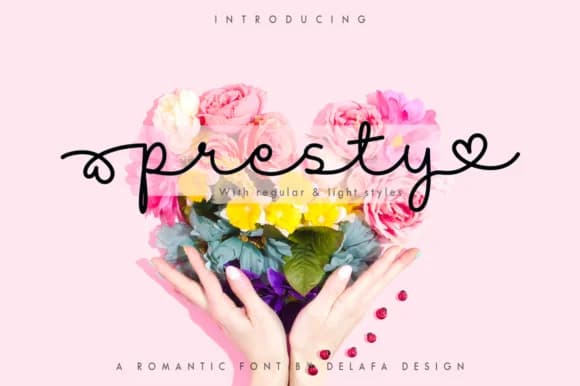
Presty Font by Delafa is a romantic script typeface with carefully drawn letterforms that bring warmth and emotional resonance to any project. The font's handcrafted aesthetic makes it ideal for sophisticated branding applications, particularly for beauty and lifestyle companies seeking an authentic, personal touch in their visual identity. Available in both Regular and Light weights, Presty adapts beautifully across different design contexts, from intimate wedding invitation suites and hand-lettered event stationery to delicate menu card designs and personalized greeting cards that demand elegance.
The thoughtful construction of each character ensures legibility even at smaller sizes, making Presty equally suited for headline work and extended body text applications. Whether you're creating romantic poetry graphics for social media engagement, designing custom wedding favors and thank-you notes, or developing artisanal branded packaging that requires a softer aesthetic, this typeface delivers authentic handwritten charm. The dual-weight system offers creative flexibility, allowing designers to layer Regular and Light versions for visual hierarchy, contrast, and sophisticated depth.
Presty works beautifully for anyone looking to infuse genuine personality into their designs without relying on heavily stylized or overly ornamental letterforms that feel dated. This is the typeface for designers who understand that quiet elegance speaks louder than visual noise. Discover Presty Font on Creative Fabrica and bring refined, heartfelt character to your next design project.
- Elegant, Flowing, Presty Regular
Presty Font is a script font that shines as a display or heading face. Pair it with a clean sans-serif or serif font for body text β the contrast creates a clear hierarchy while the two styles stay balanced and easy to read.
Presty Font